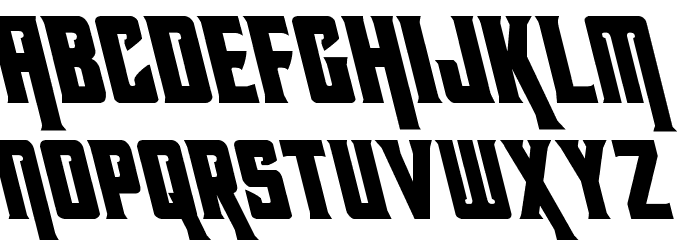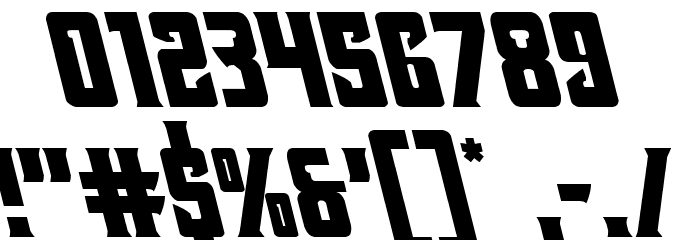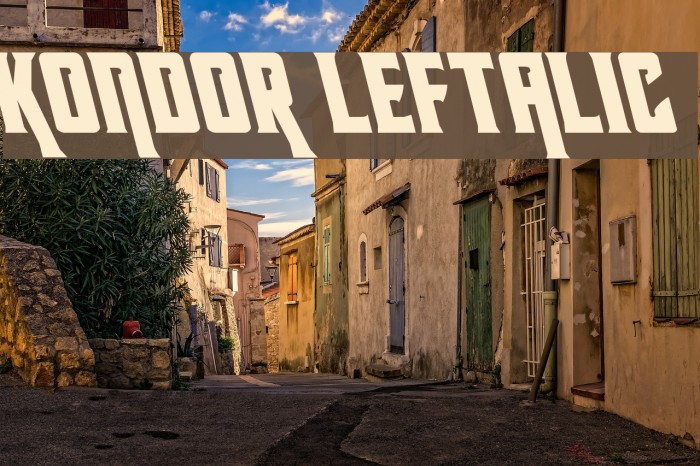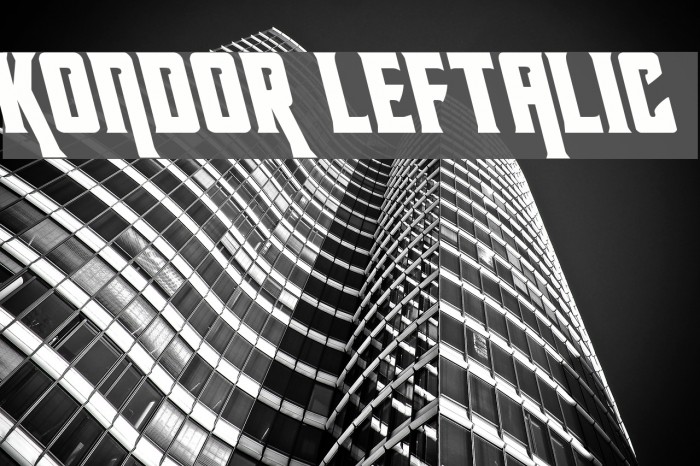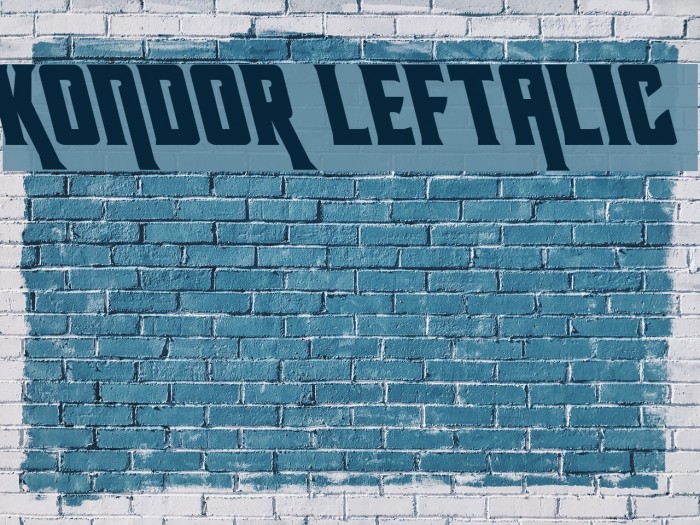
Kondor Leftalic Font
This font features a bold and dynamic design with a strong slant to the left, giving it a sense of motion and urgency. The characters are wide and blocky, with sharp angles and a geometric feel. The uppercase and lowercase letters maintain a consistent style, while the numbers and special characters integrate seamlessly with the overall aesthetic. The thick strokes and minimal contrast make it highly legible, even at smaller sizes. Its unique style is both modern and slightly aggressive, making it stand out in any design.
A bold, left-leaning font with a dynamic and geometric style.
- Proposed Projects: Ideal for sports branding, dynamic posters, video game titles, and edgy advertising campaigns.
- Width: Expanded